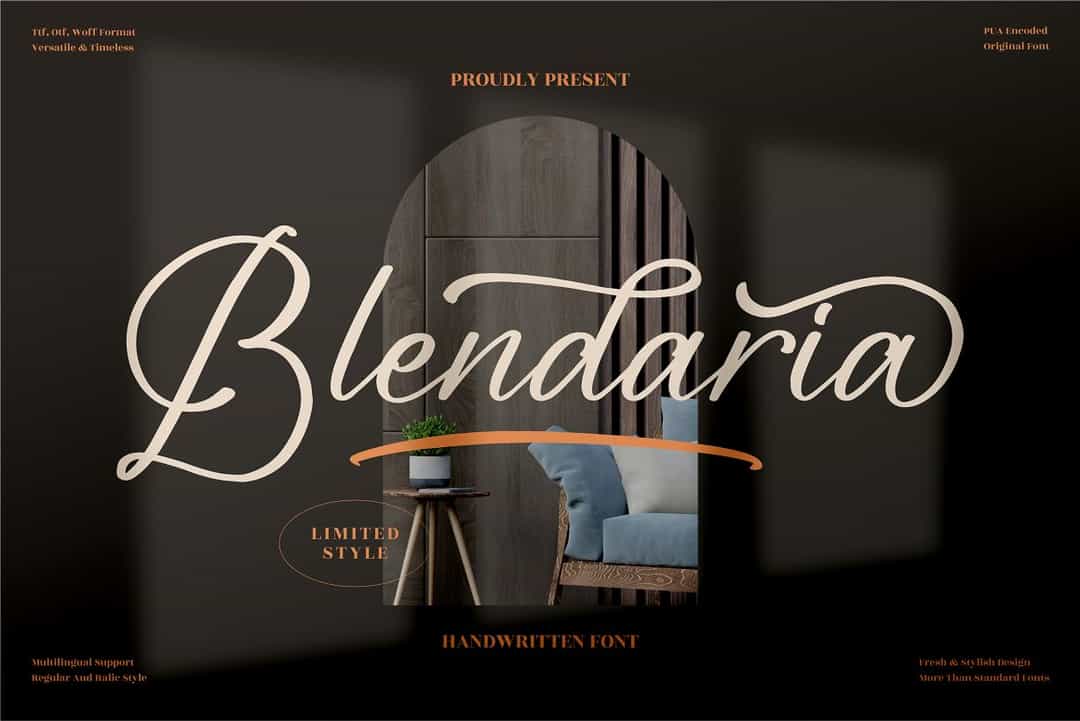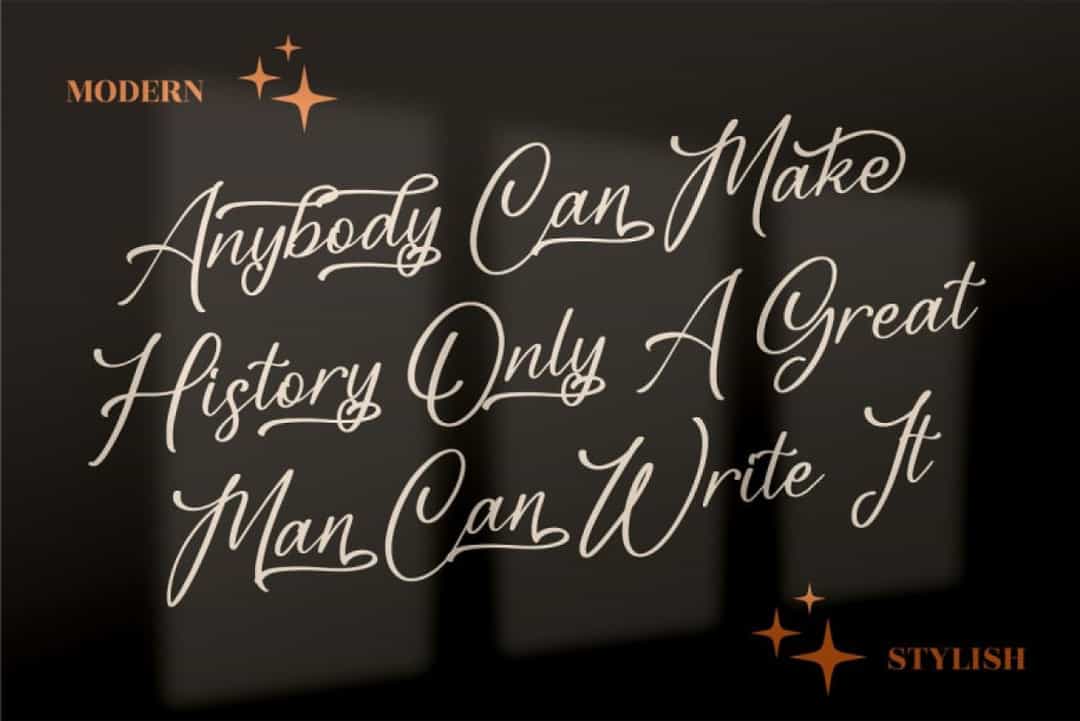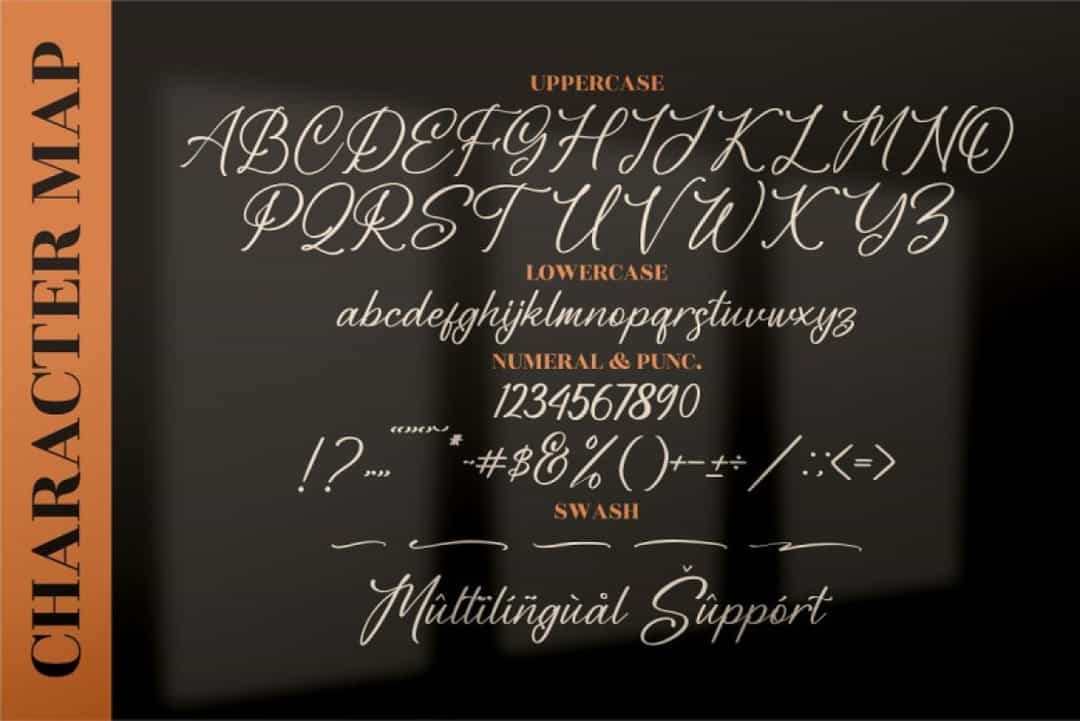
Blendaria Font is an elegant and charming handwritten calligraphy typeface featuring characters that dance across the bottom, ideal for adding luxurious sparkle to any design you are creating! PUA encoded, so users can access all its fantastic ligatures and glyphs effortlessly!